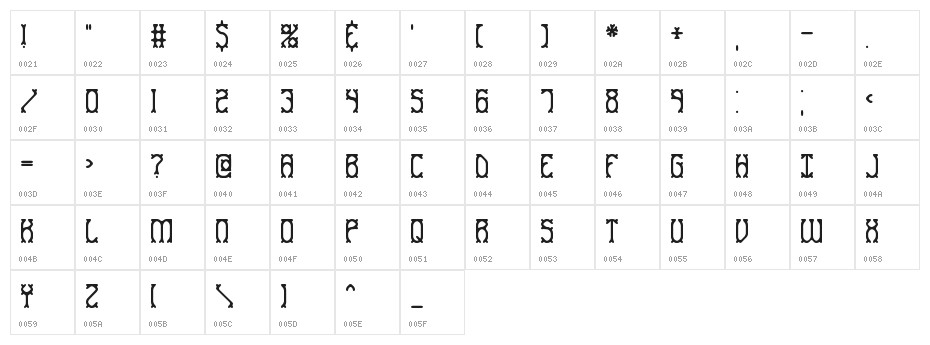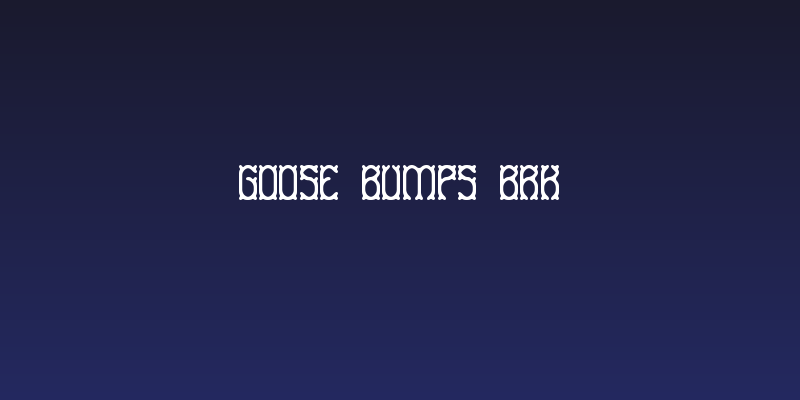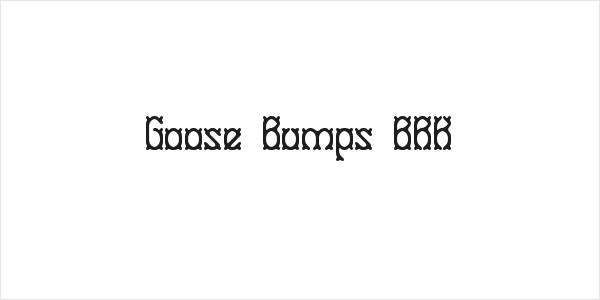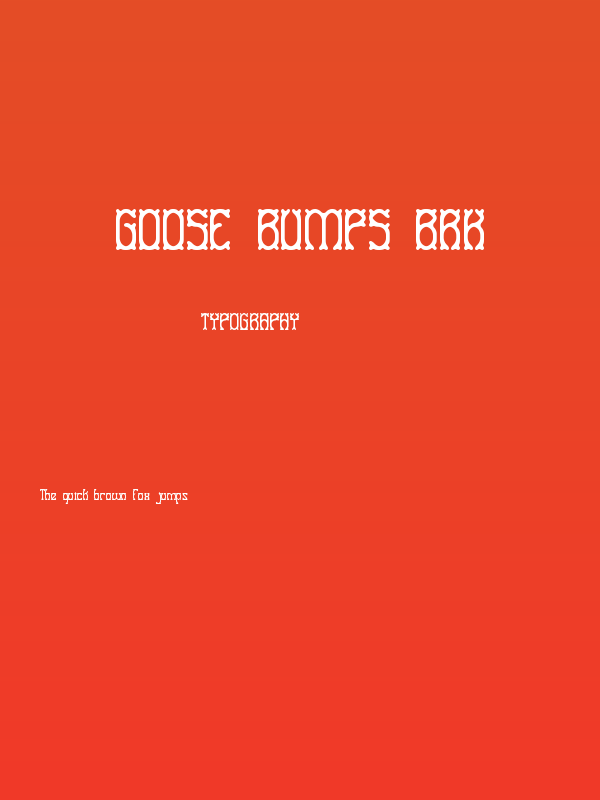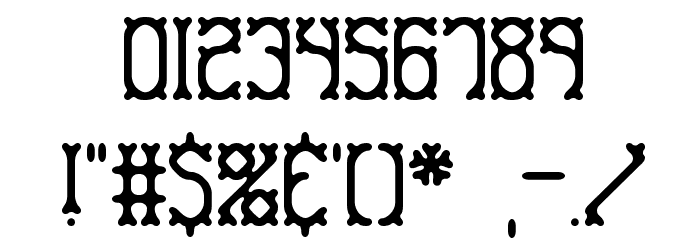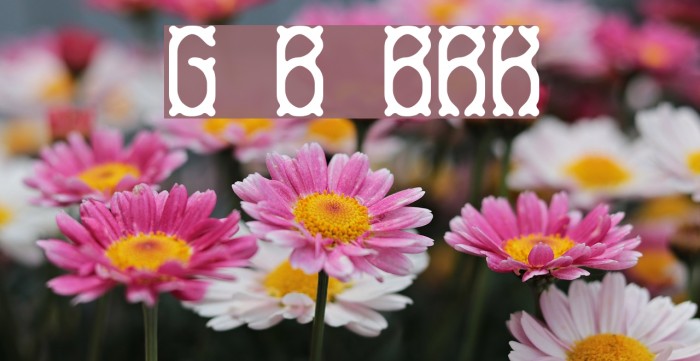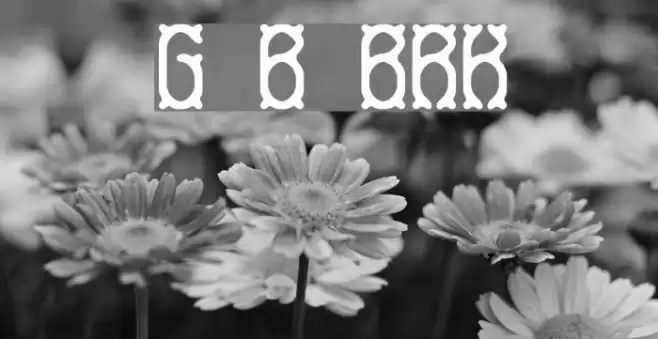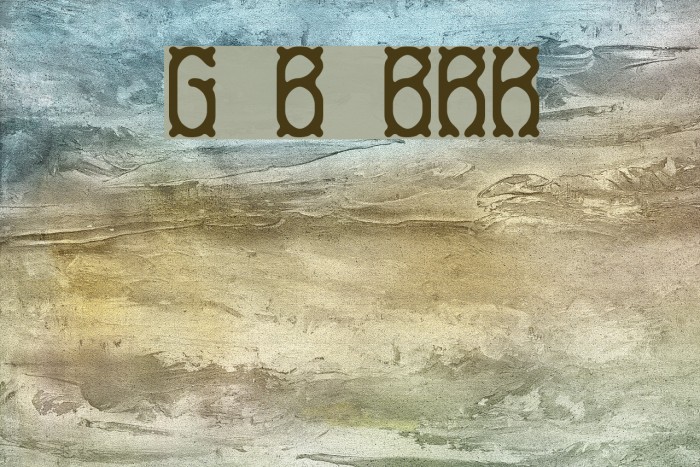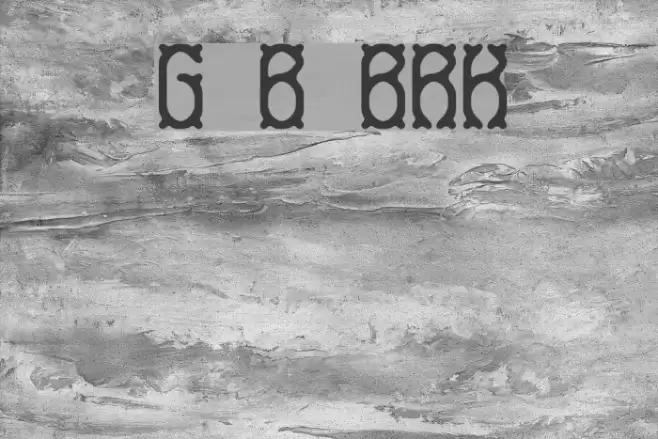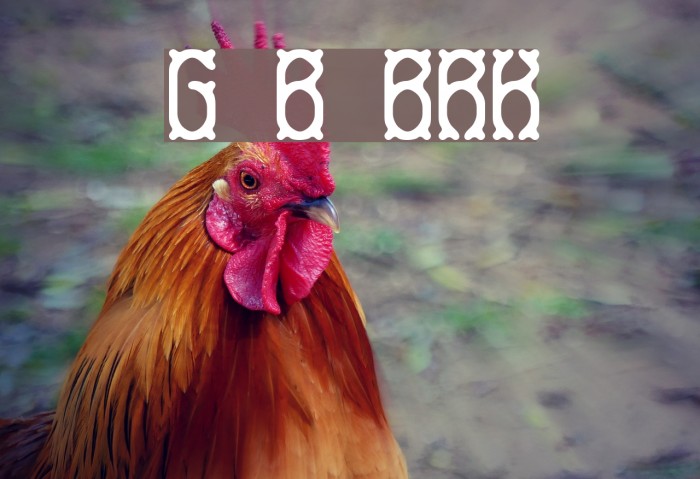
Goose Bumps BRK Font
Goose Bumps BRK Description
This font features a unique and decorative style with a playful, slightly spooky aesthetic. The characters are bold and have a distinct, irregular outline that gives them a hand-drawn appearance. The uppercase and lowercase letters maintain a consistent style, with rounded edges and a slightly condensed form. The numerals and special characters follow the same design principles, ensuring a cohesive look across all glyphs. This font's quirky and eye-catching design makes it ideal for projects that require a touch of whimsy or a Halloween theme.
| Proposed Projects | Ideal for Halloween-themed designs, children's book covers, posters, and playful branding. |